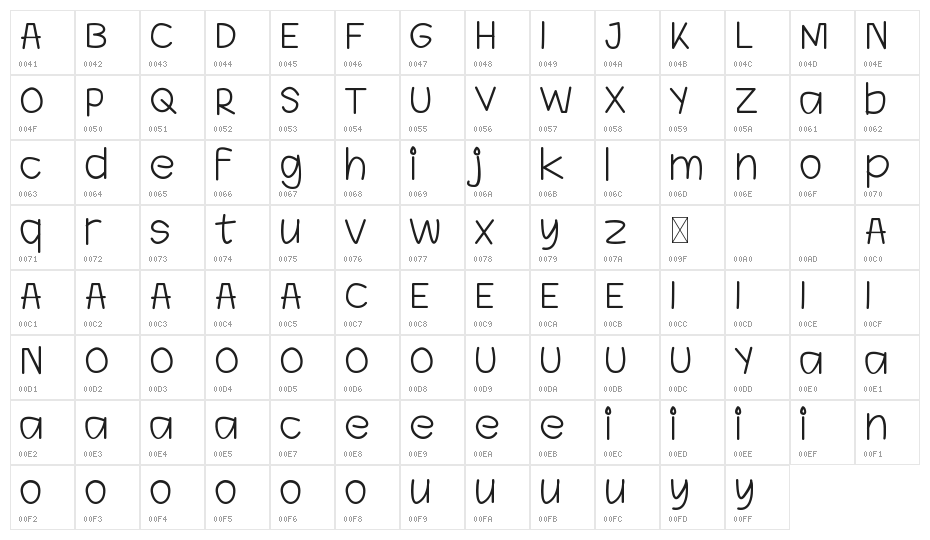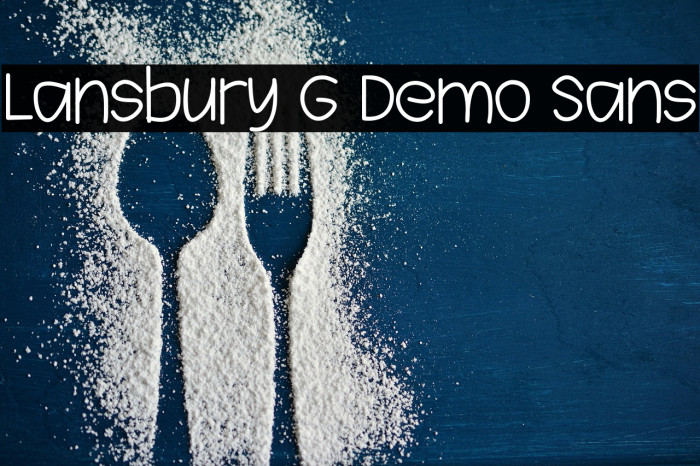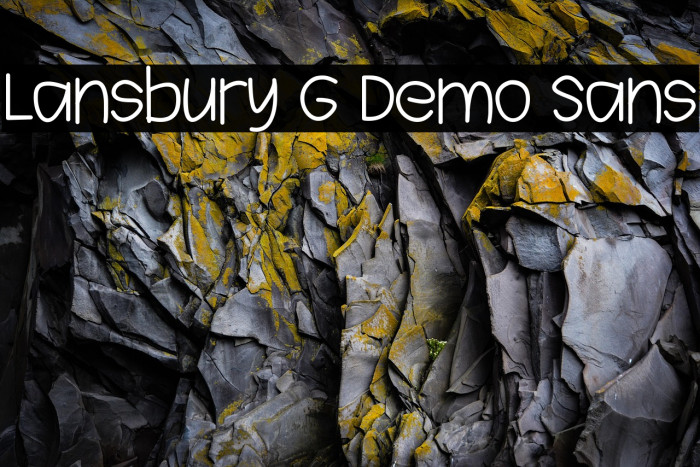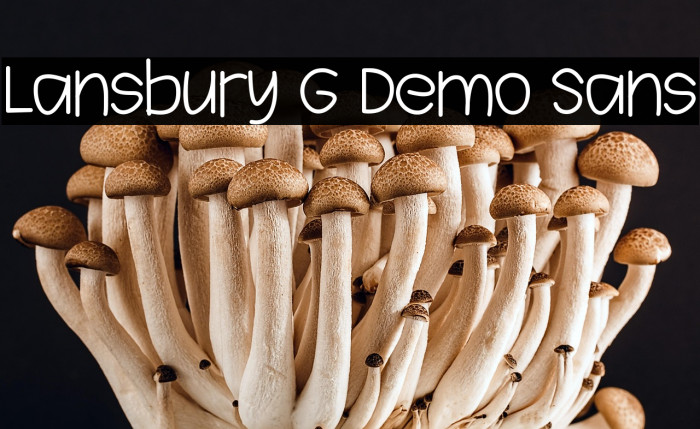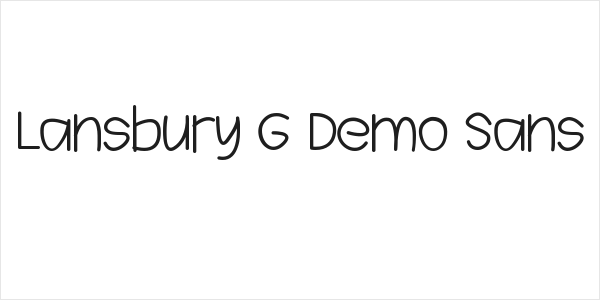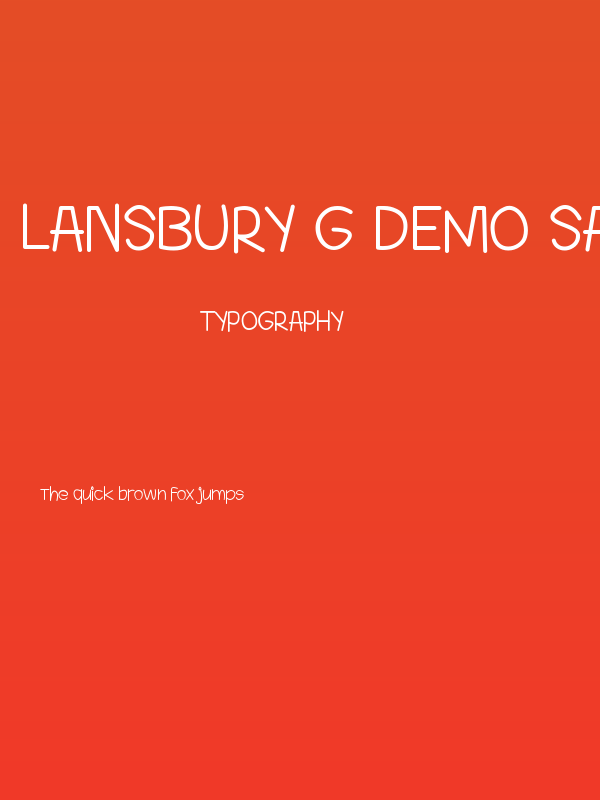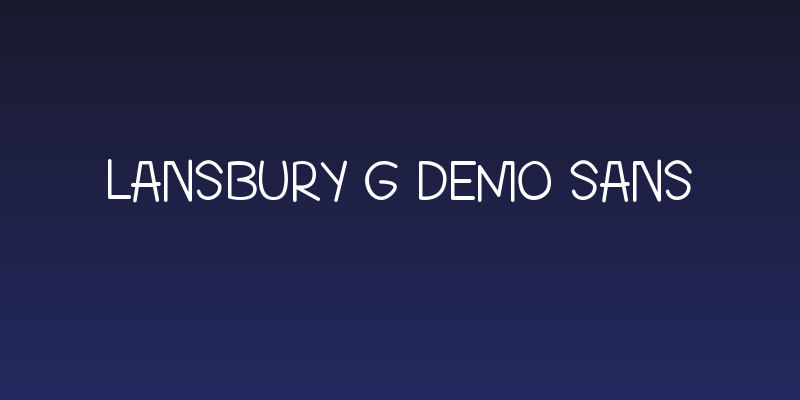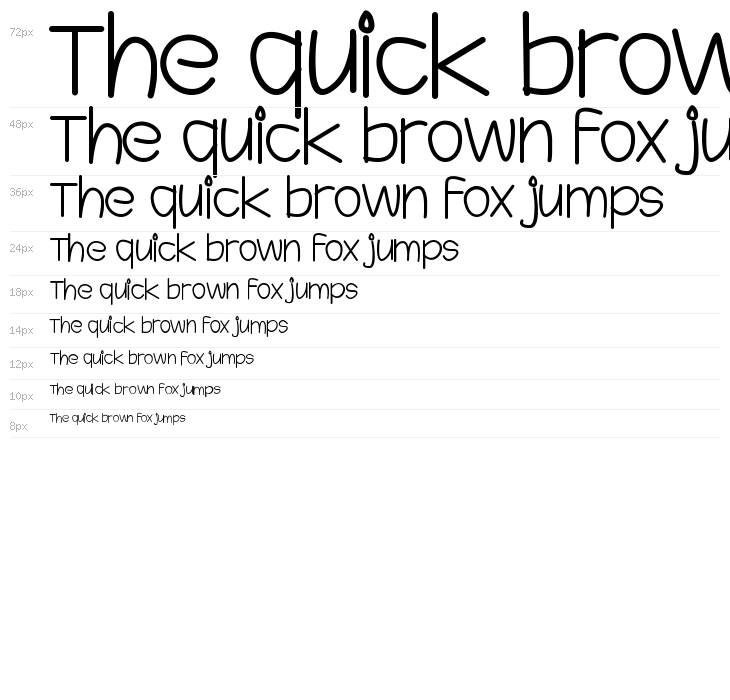
Lansbury G Demo Sans Font
Lansbury G Demo Sans Description
This font features a playful and whimsical design with rounded edges and a casual, handwritten style. The uppercase and lowercase letters maintain a consistent height, creating a uniform appearance. The strokes are smooth and slightly curved, adding a friendly and approachable feel. The font includes a full set of uppercase and lowercase letters, numbers, and a selection of special characters. Its simplicity and charm make it suitable for projects that require a lighthearted and informal touch.
| Use Case | Headlines, Logos, Informal text |
| Proposed Projects | Ideal for children's books, greeting cards, playful branding, and informal invitations. |